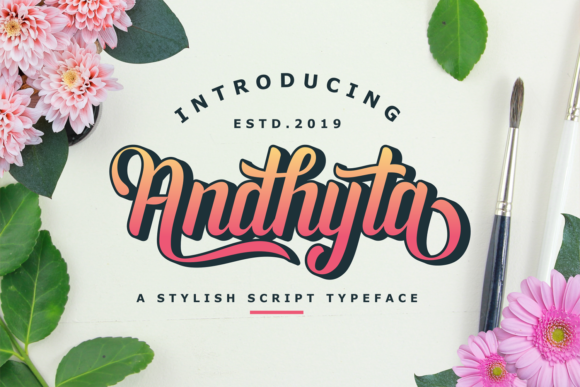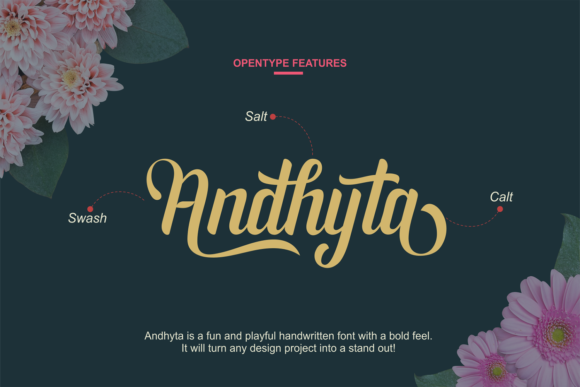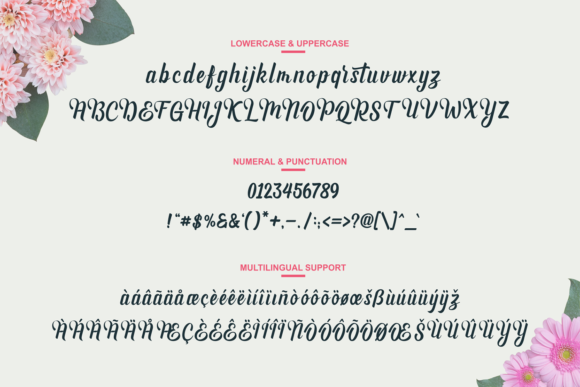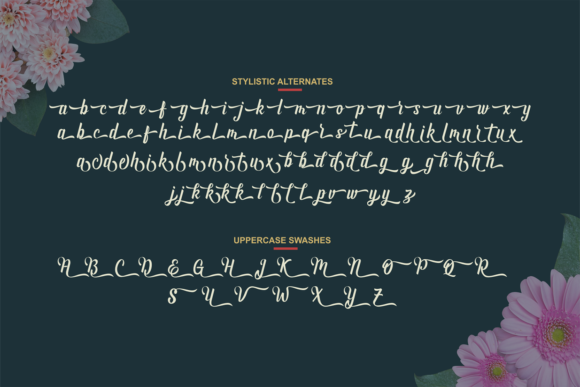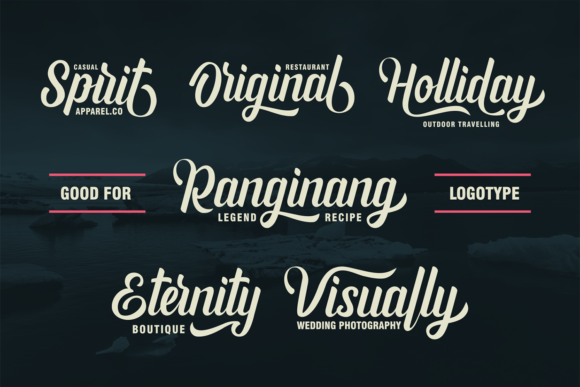
HomeScript FontsAndhyta Font Script Fonts Andhyta Font FacebookXPinterestWhatsApp Andhyta Font Poster 2 Andhyta Font Poster 3 Andhyta Font Poster 4 Andhyta Font Poster 5 About Andhyta Font Andhyta is a fun and playful handwritten font with a bold feel. It will turn any design project into a stand out! DOWNLOAD ON CREATIVE FABRICAThis font is sold and delivered by Creative Fabrica. Font Canyon may earn a commission if you buy through this link. People also explored The Sunbathe Font Hero Font Qaylla Font Kamild Font Strongman Font Continue Font Just Believe Font Forestry Font Sweety Milk 319 0 TagsAndhyta Font Previous articleLottus FontNext articleBarista Script Font LEAVE A REPLY Cancel reply Comment: Please enter your comment! Name:* Please enter your name here Email:* You have entered an incorrect email address! Please enter your email address here Website: Save my name, email, and website in this browser for the next time I comment. Personal Use Free Masker Area Personal Use Free Read more about this font Borg Personal Use Free Read more about this font The Sweet Neo Personal Use Free Read more about this font Dream Personal Use Free Read more about this font BLOG Modern Sans-Serif Fonts That Brands Love in 2025 In 2025, modern sans-serif fonts remain a top choice for brands looking to project clarity, professionalism, and... 5 Fonts That Will Dominate Design Trends in 2026 Where to Buy American Fonts Online in 2024 Best Fonts for T-Shirt Design – Top 2025 Picks